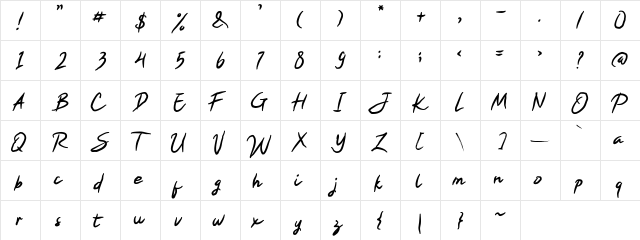
The Hammerstone Regular
| Foundry | Steven Joss |
| Designer | Steven Joss |
Design Context for The Hammerstone Typeface
The Hammerstone is a composed and adaptable typeface that performs quietly and consistently across a wide range of design contexts.